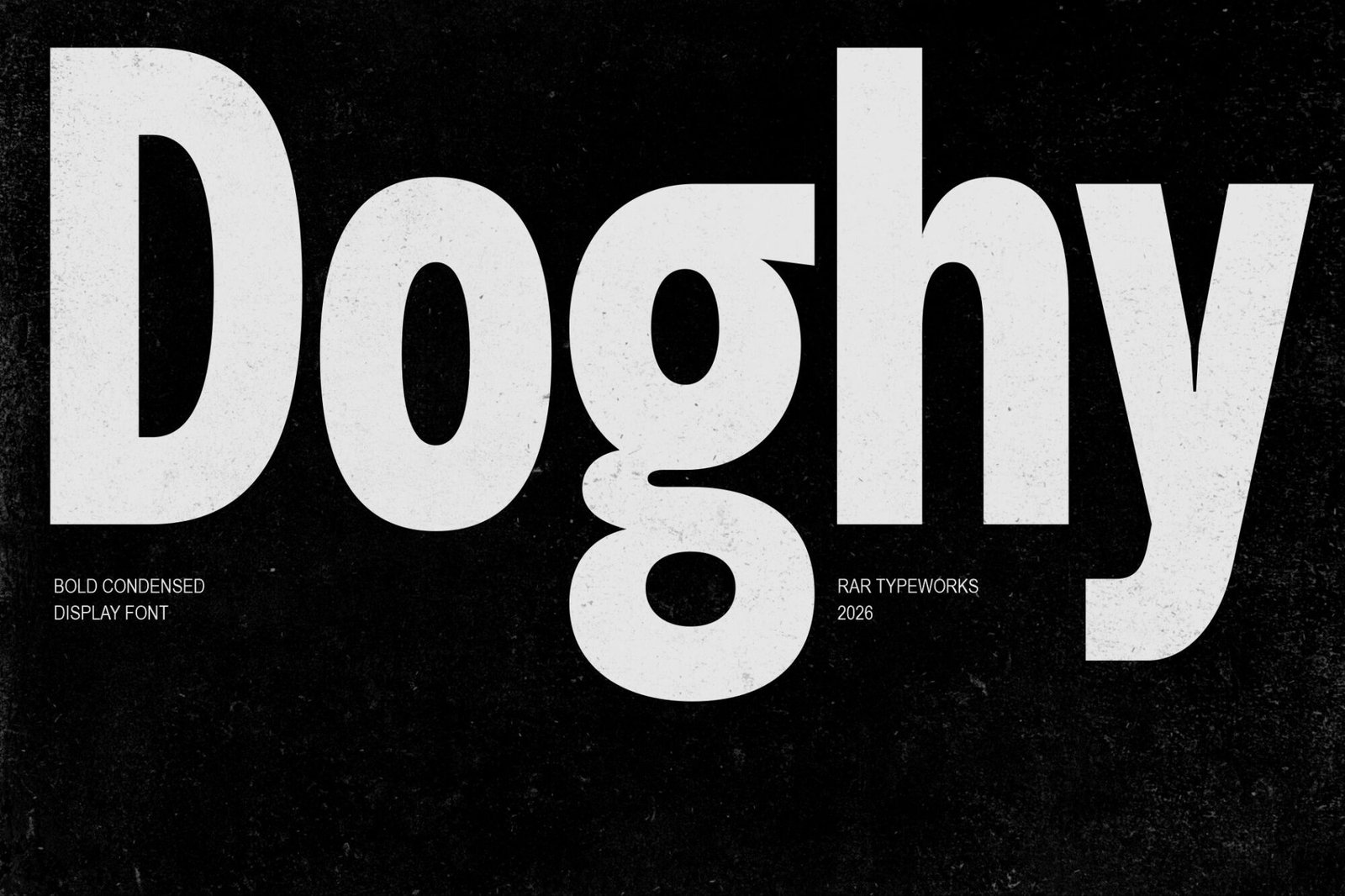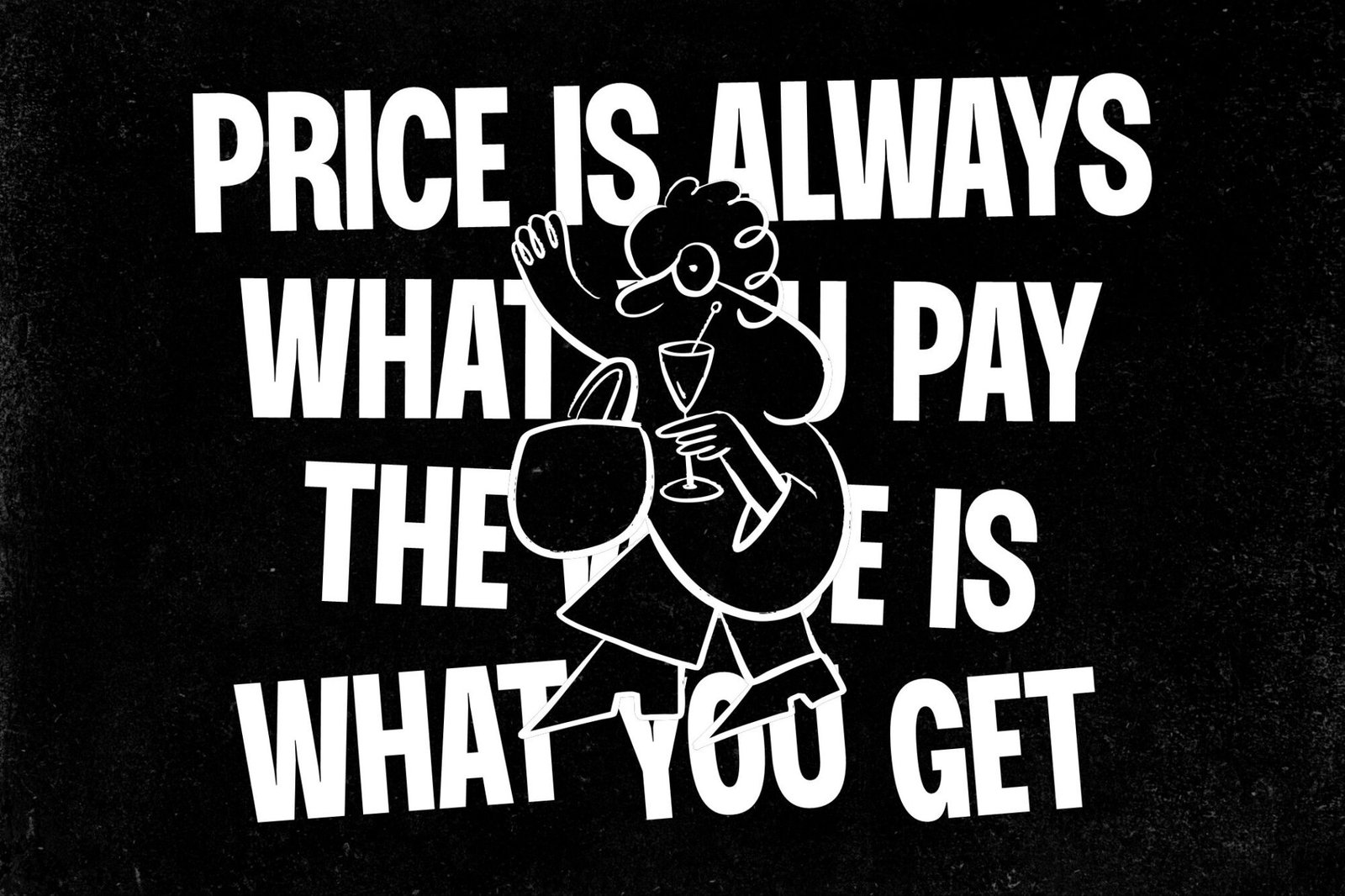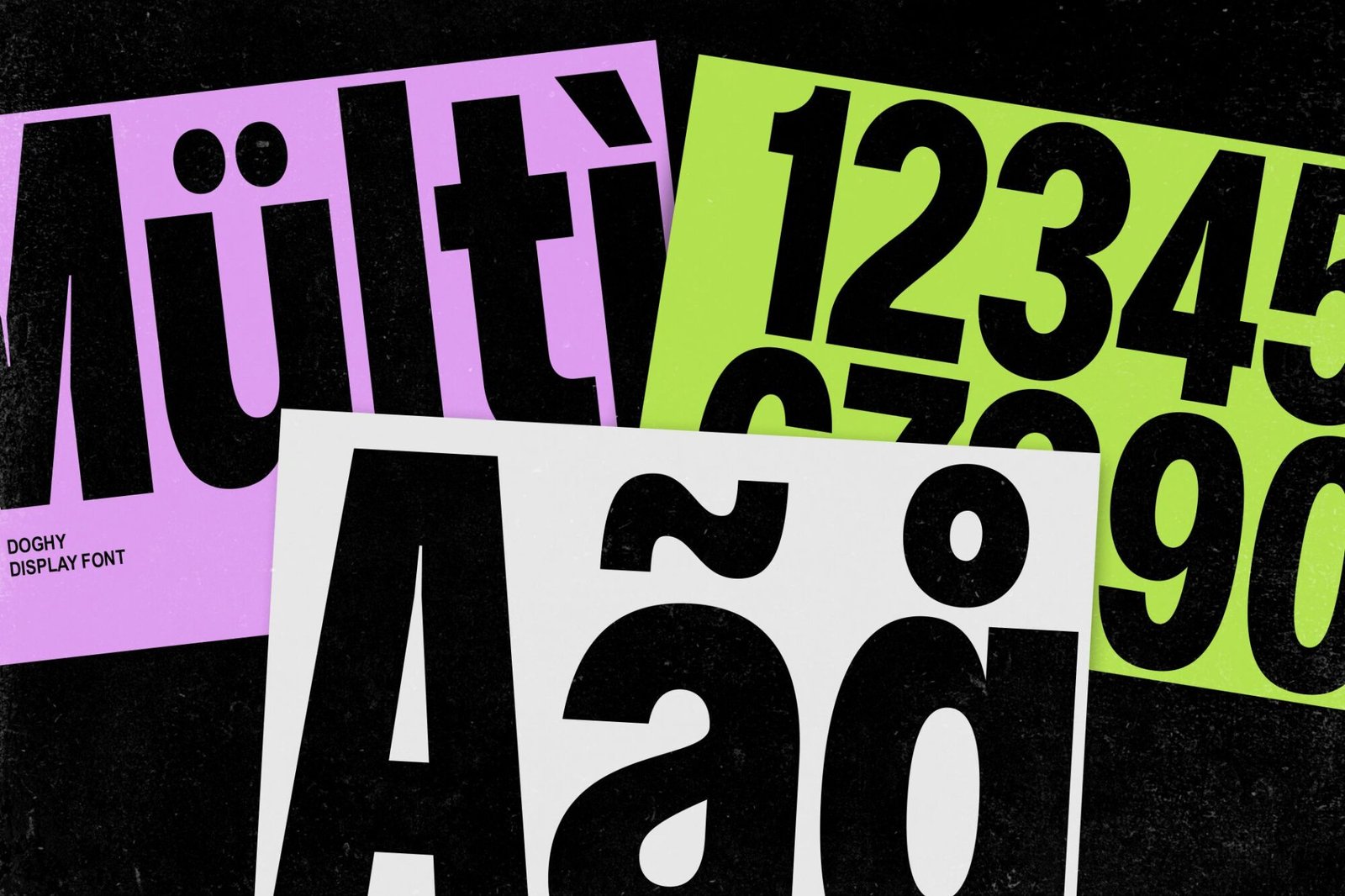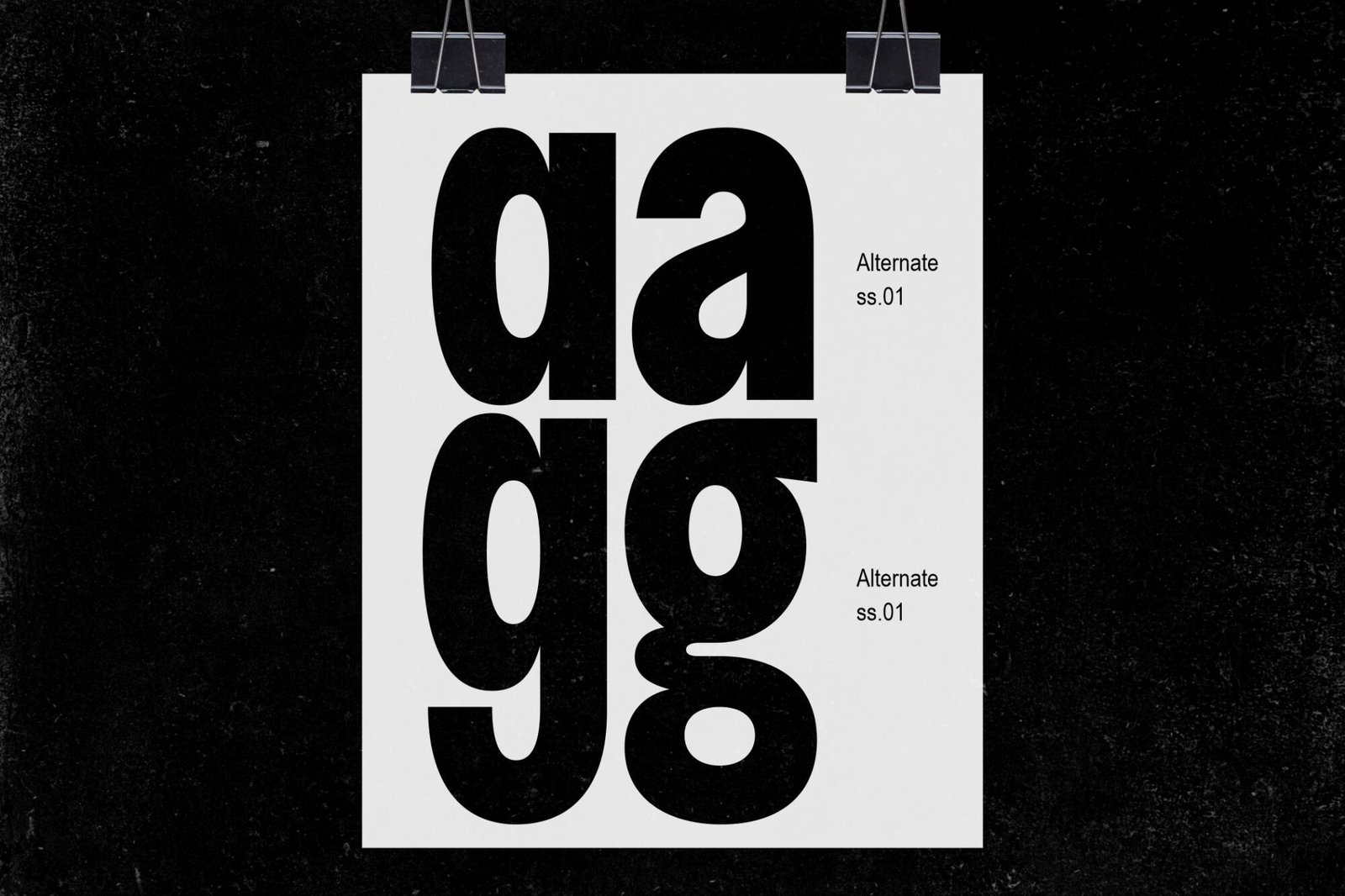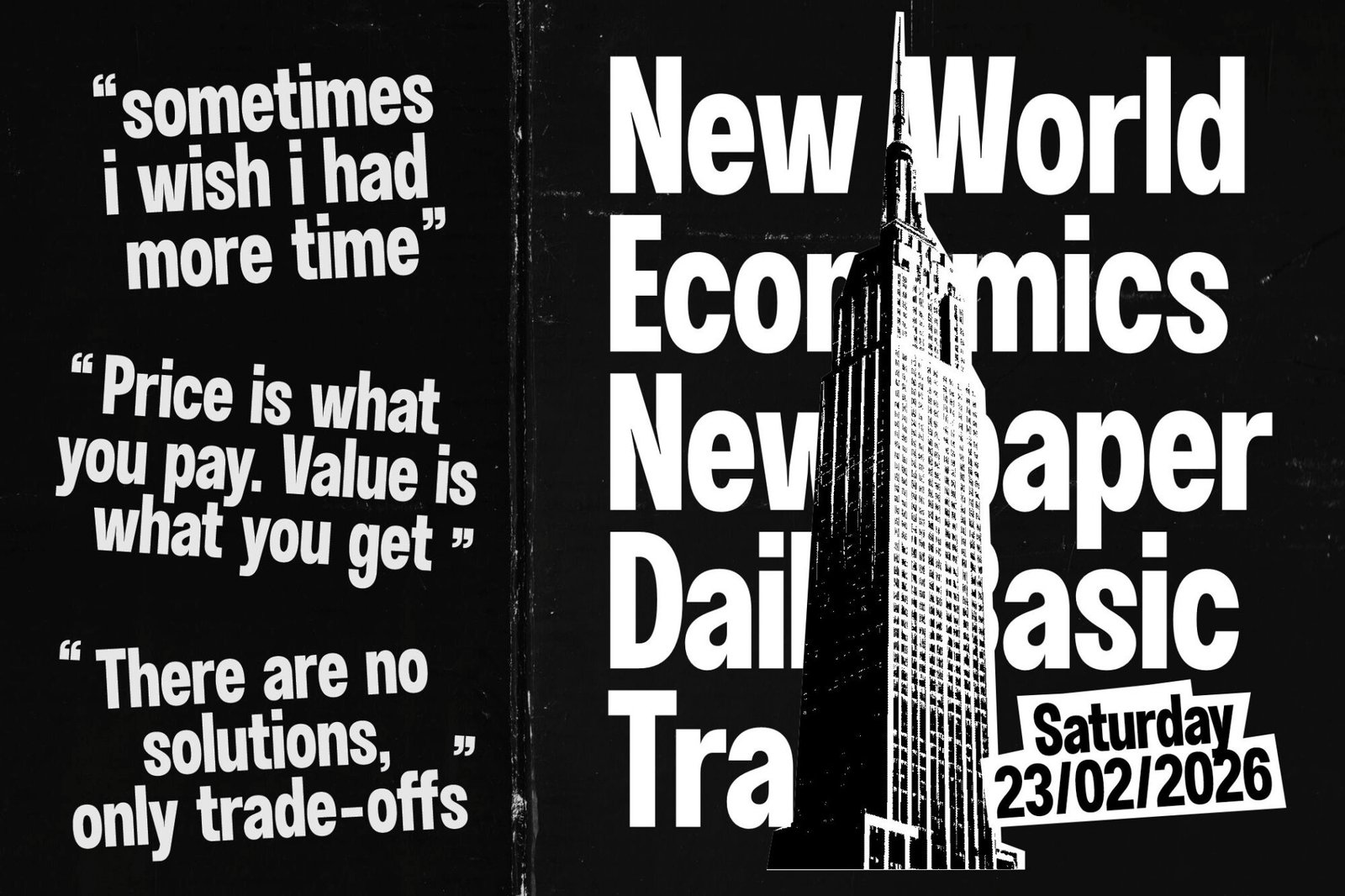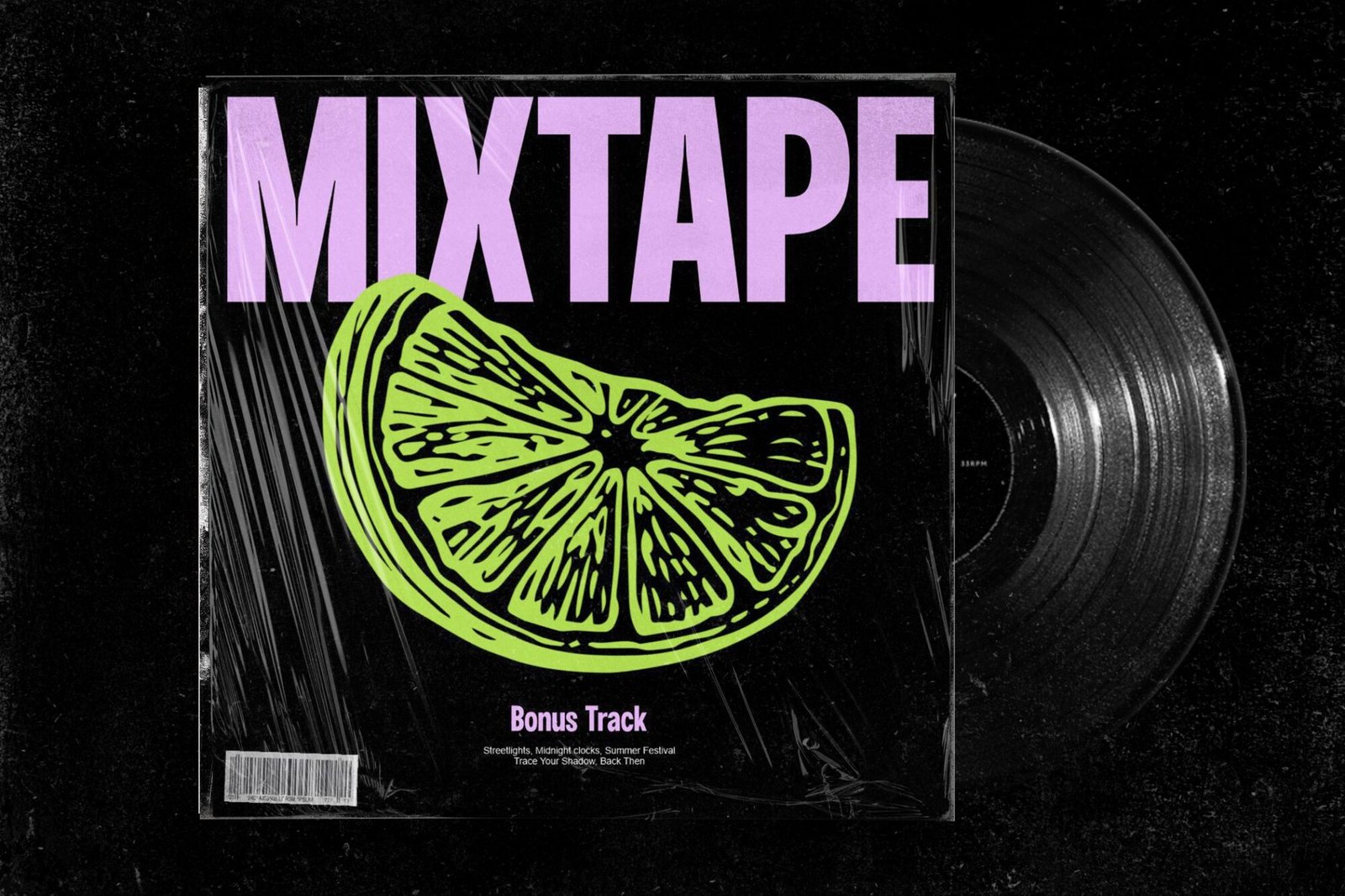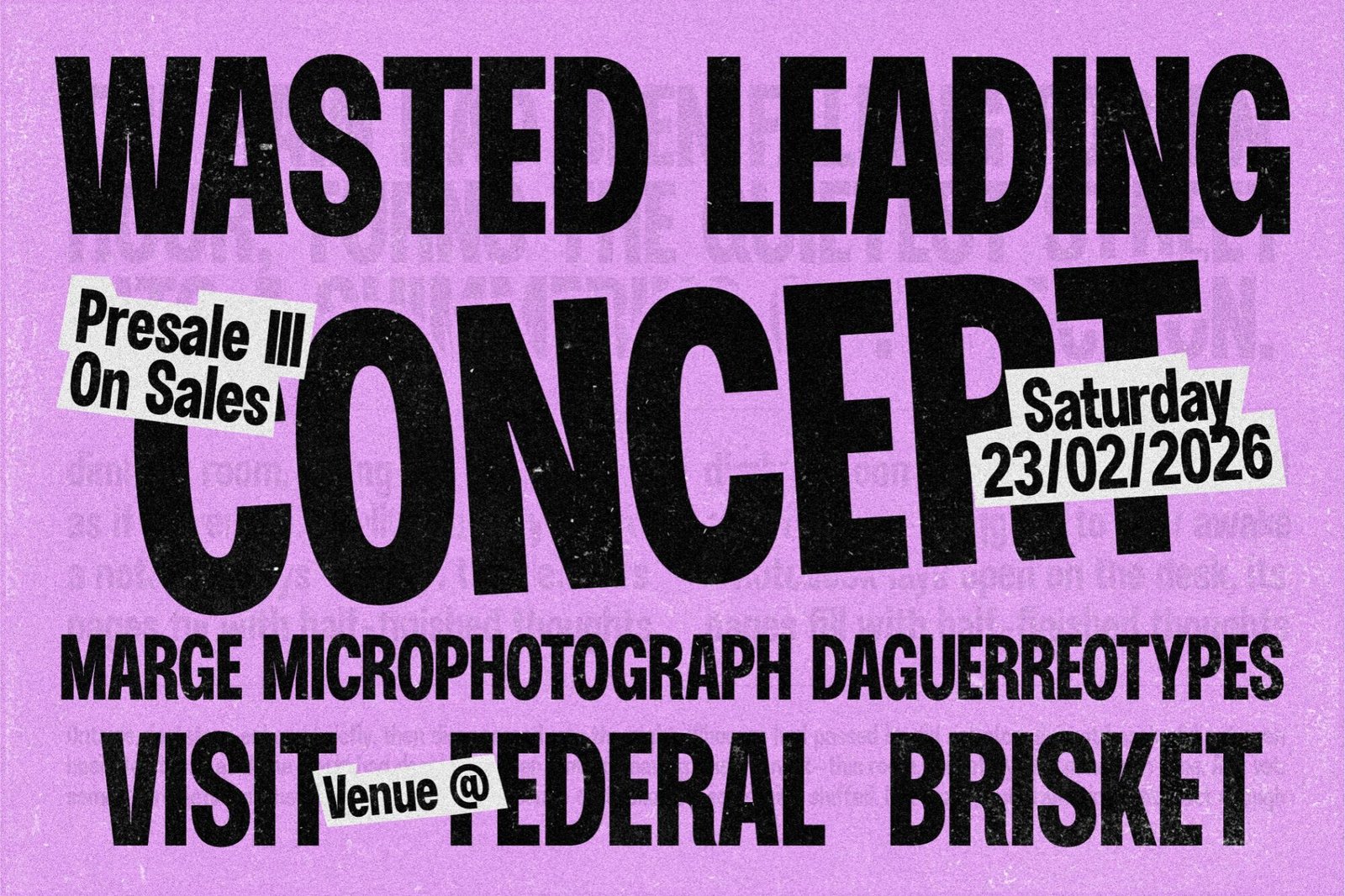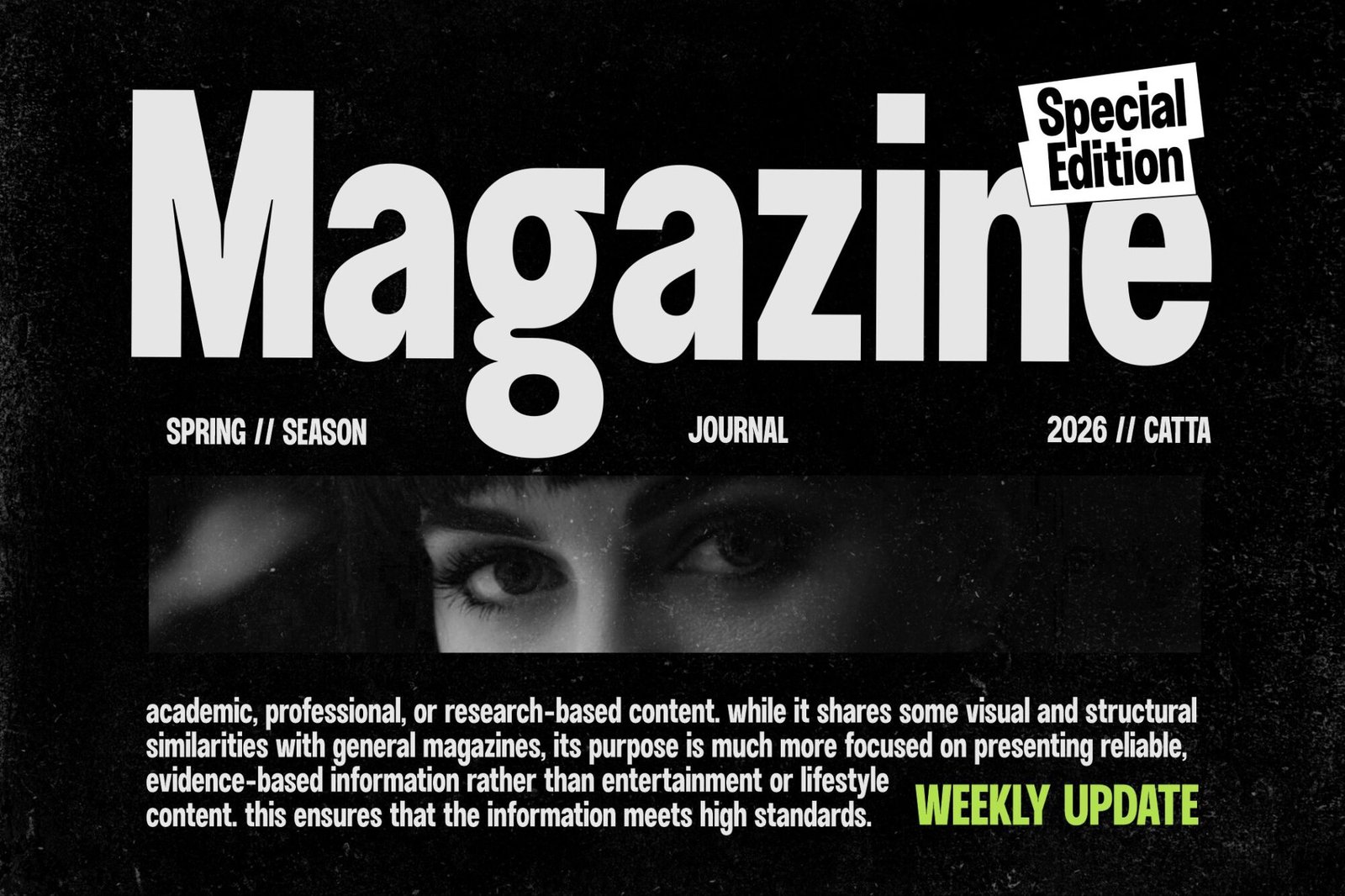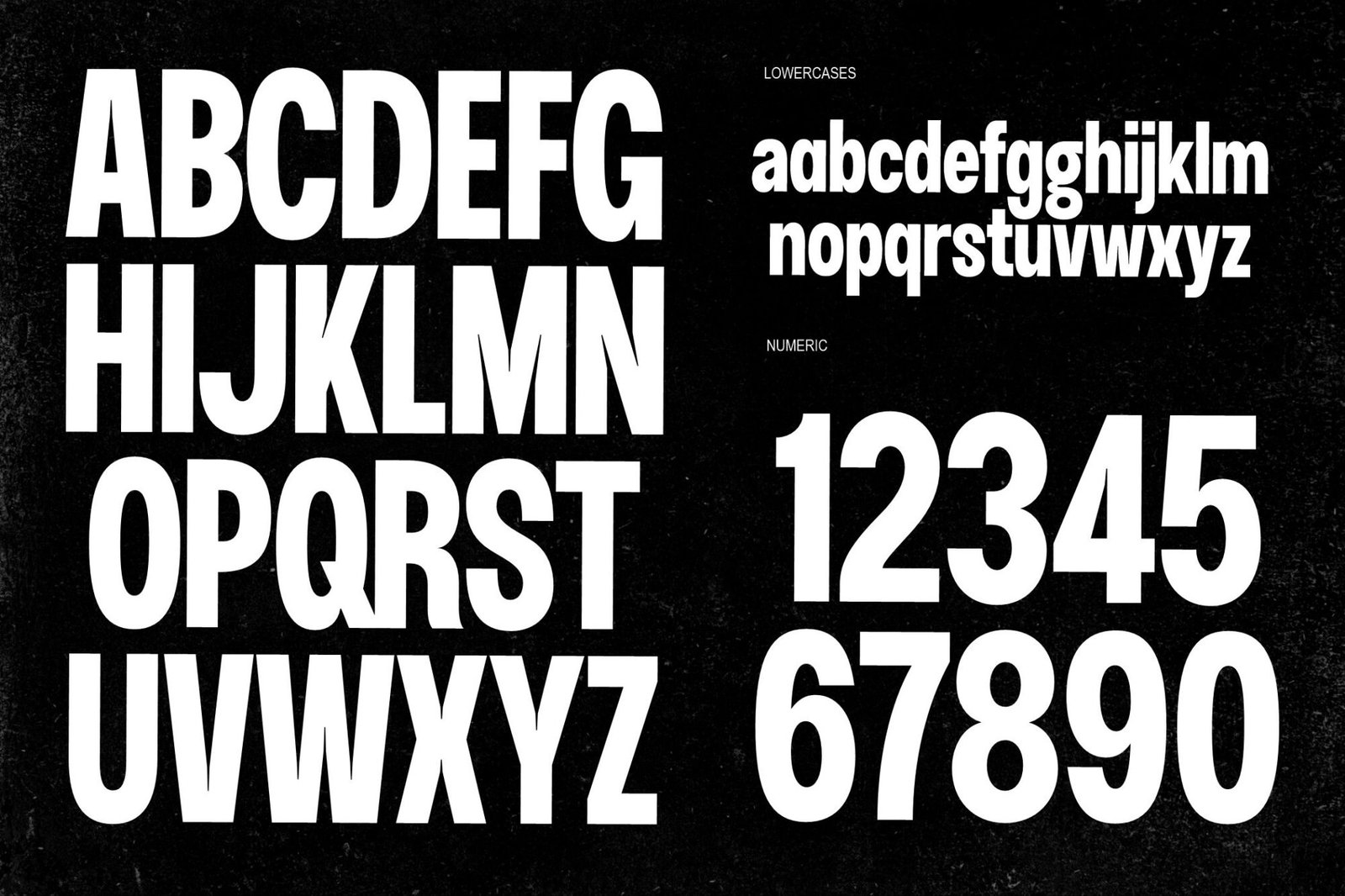
Doghy – Bold Condensed Display Font
Doghy is a powerful bold condensed display font designed to make a strong visual impact. With its tall proportions, tight spacing, and solid geometric structure, Doghy delivers a confident and modern look that stands out in any layout.
Built for high visibility, Doghy performs exceptionally well in headlines, posters, branding, packaging, and digital content. Its clean yet assertive letterforms create a perfect balance between readability and bold personality, making it suitable for both contemporary and industrial-style designs.
Whether you’re crafting a striking brand identity or eye-catching promotional materials, Doghy brings strength, clarity, and character to your typography.
Features:
Bold condensed style
Strong and modern character
Highly legible for display use
Perfect for headlines, logos, posters, and branding
Doghy is more than just a font it’s a statement.